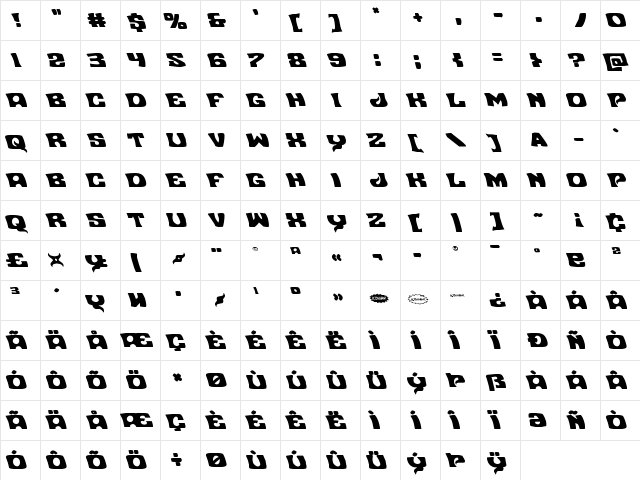
Nuevo Passion Leftalic Italic Font Preview
Nuevo Passion Leftalic Italic
Design Context for Nuevo Passion Leftalic Typeface
Nuevo Passion Leftalic is a composed and adaptable typeface that performs quietly and consistently across a wide range of design contexts. The slanted form adds forward momentum and visual energy.